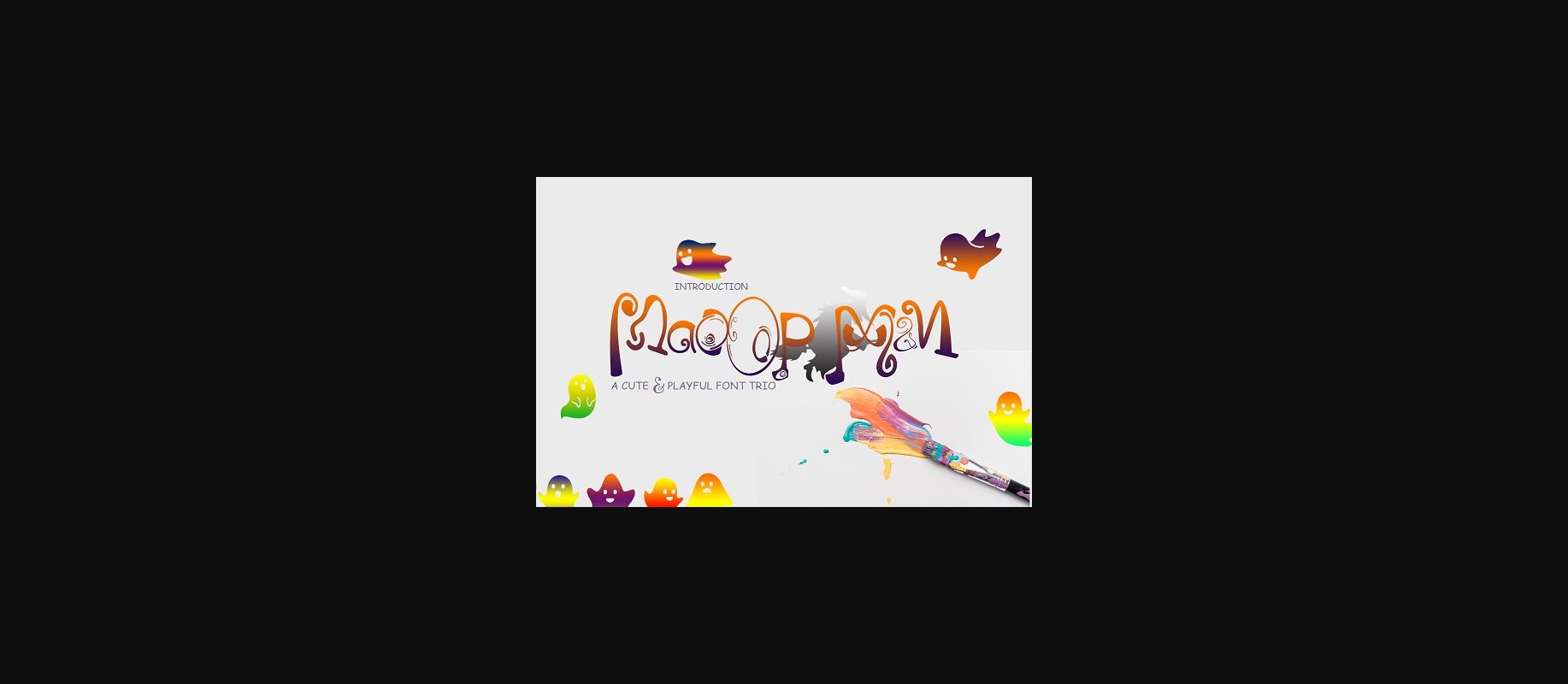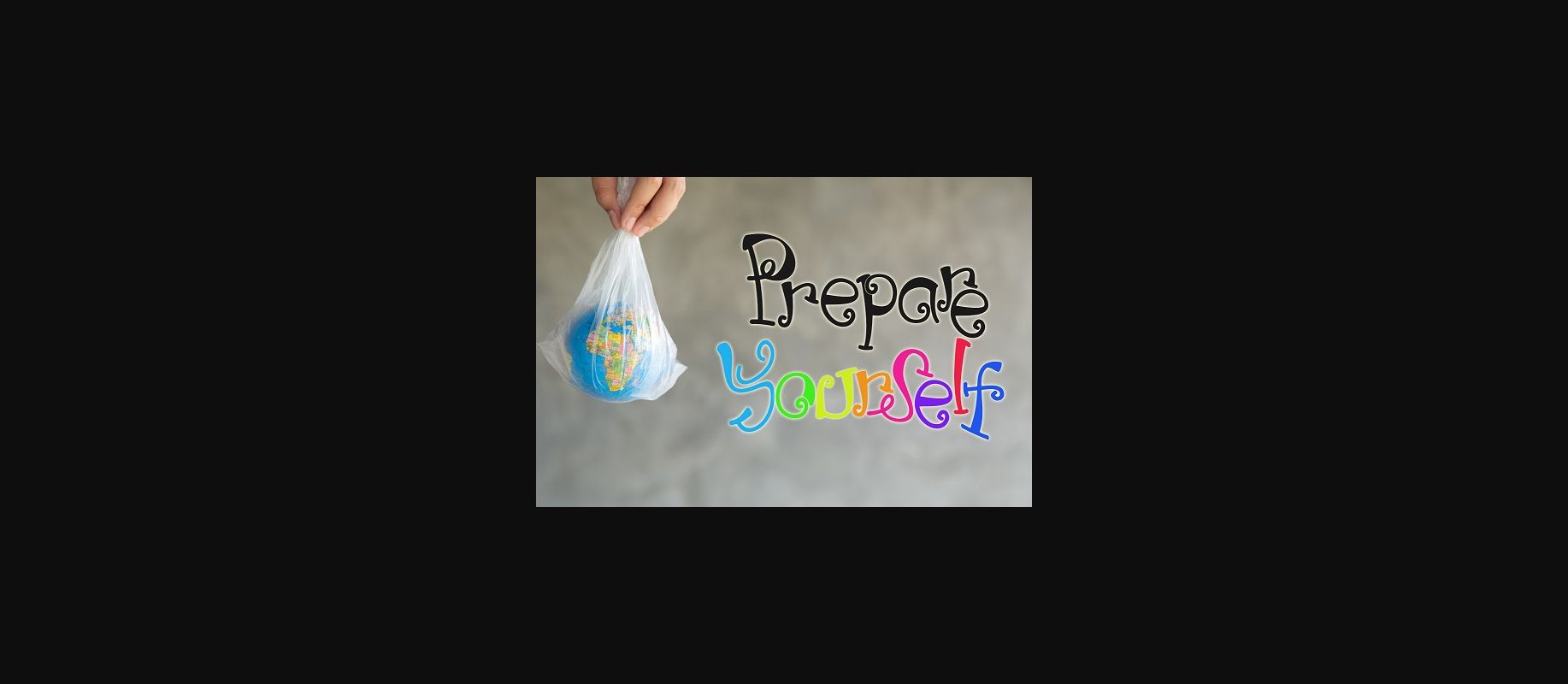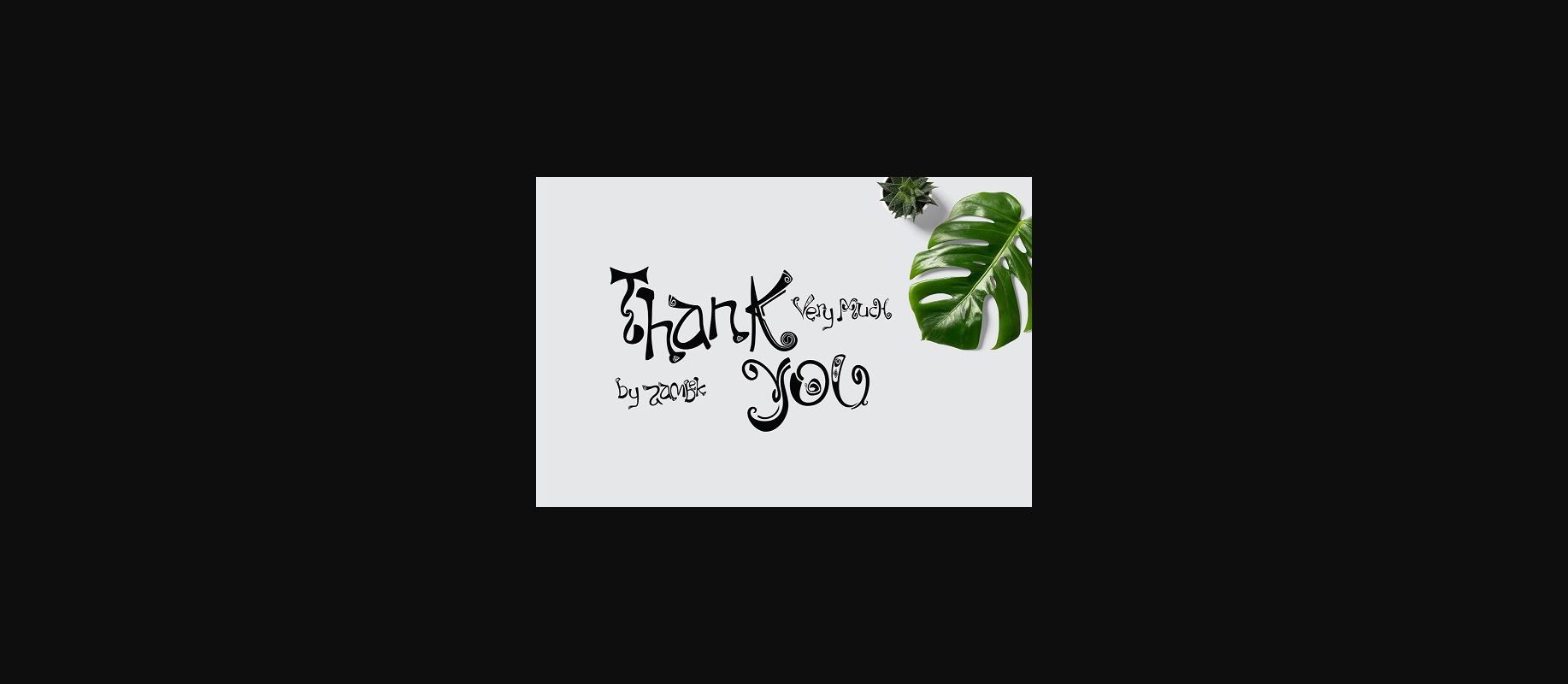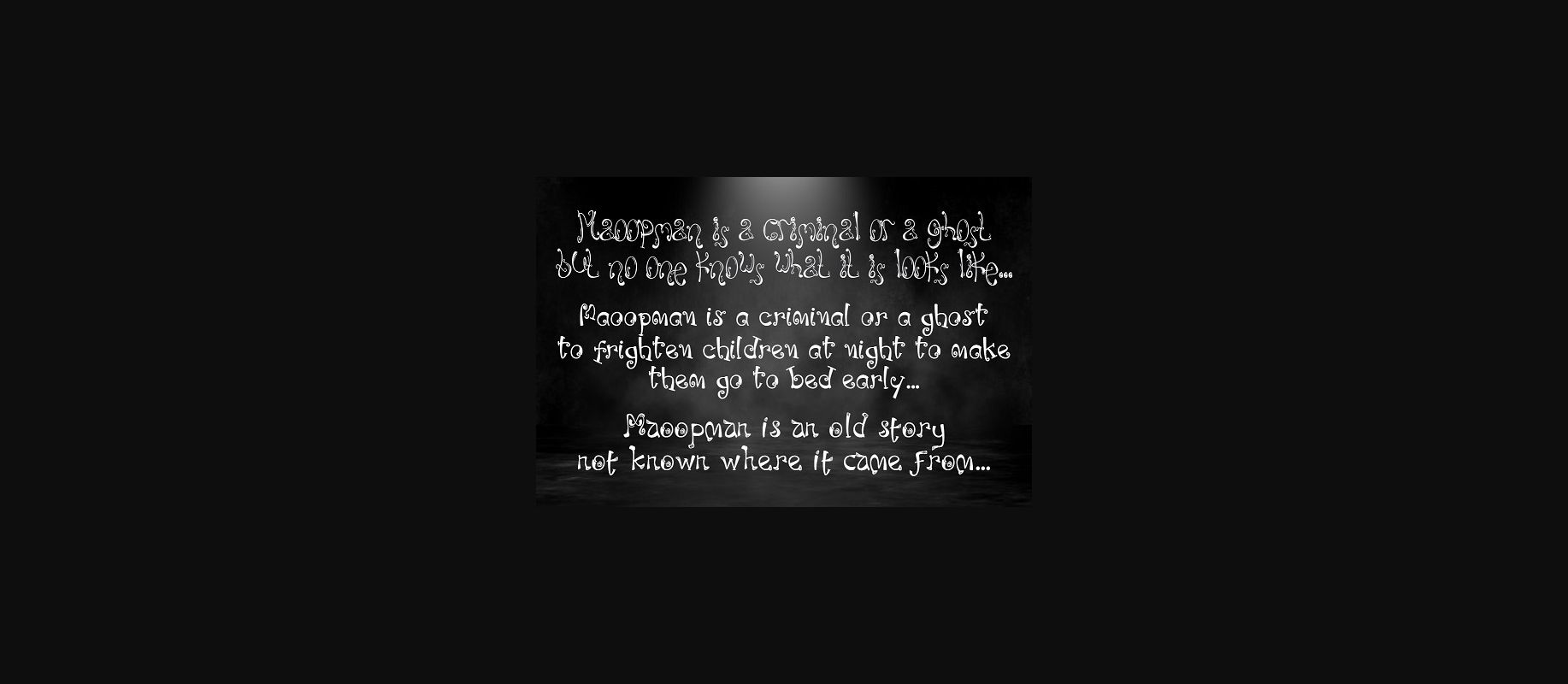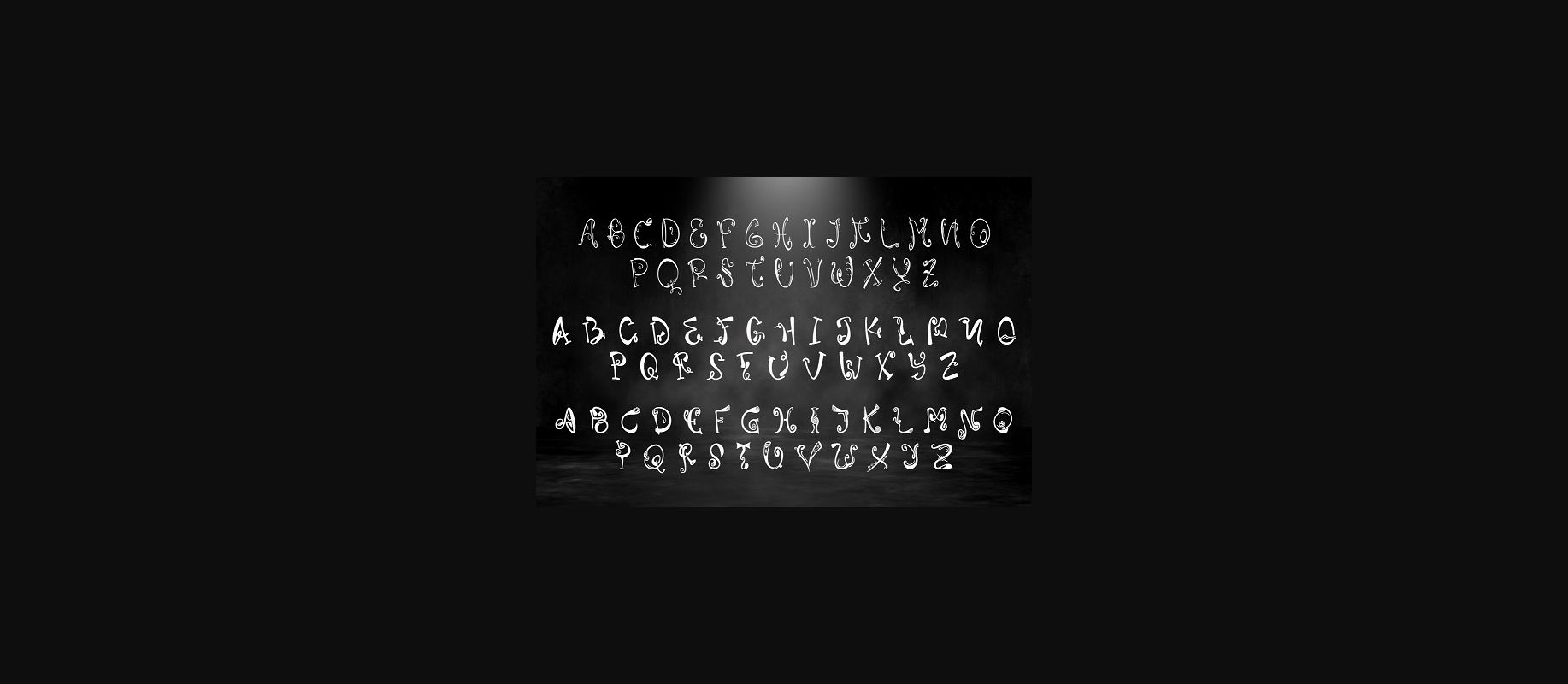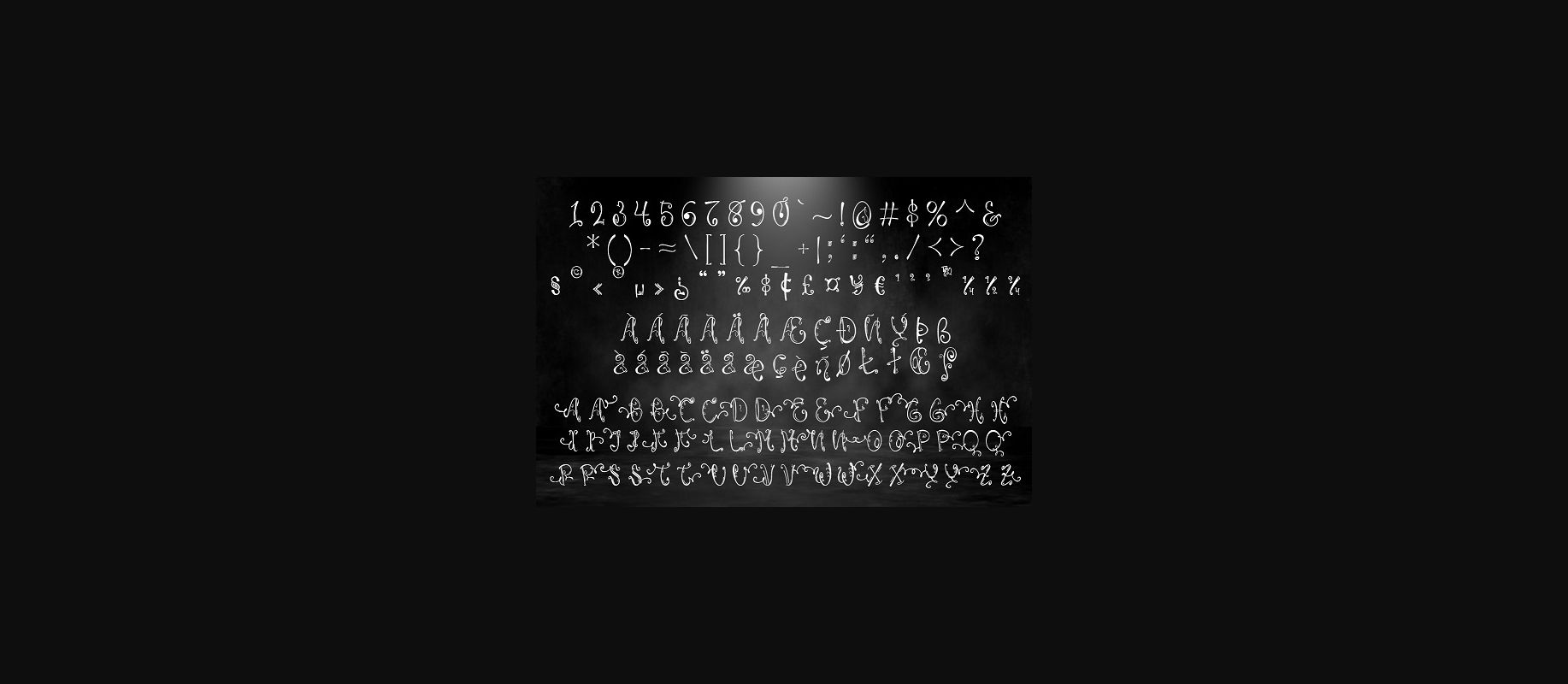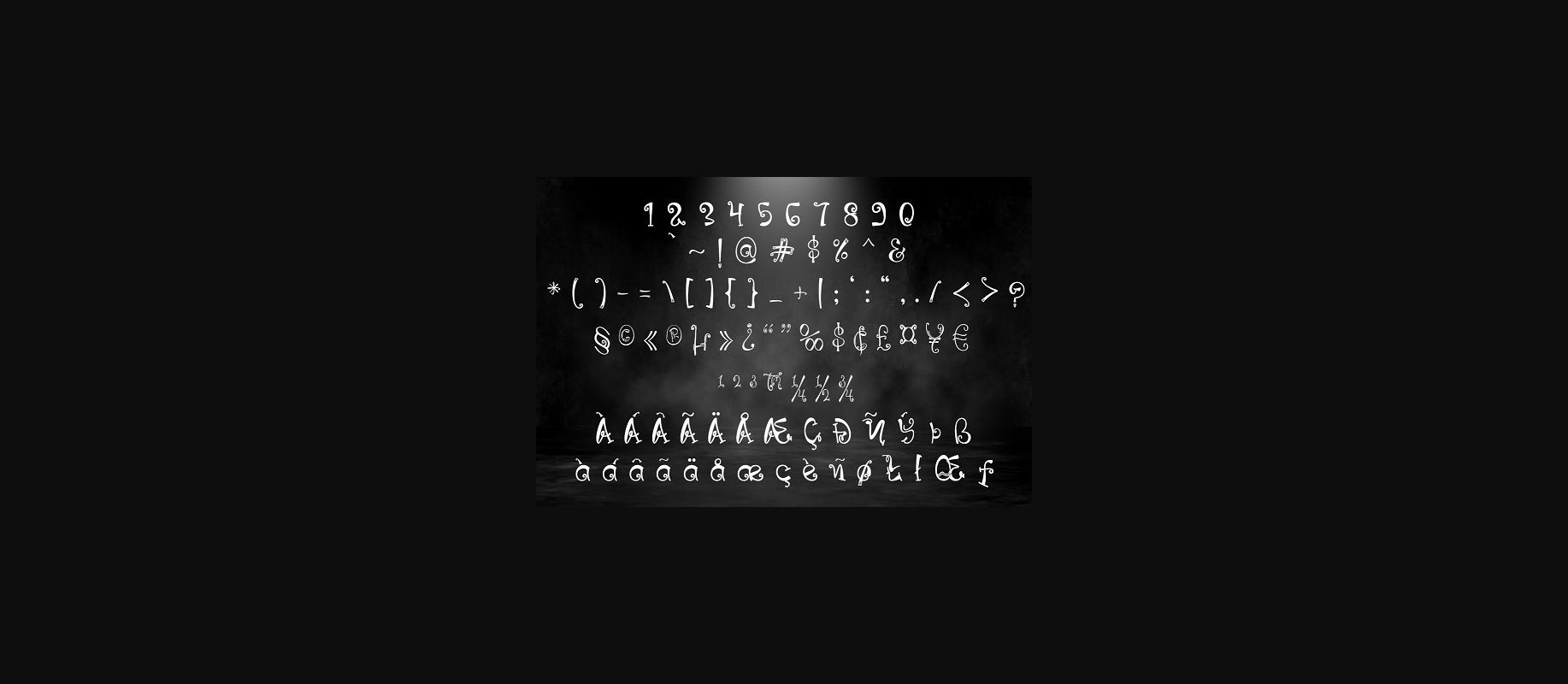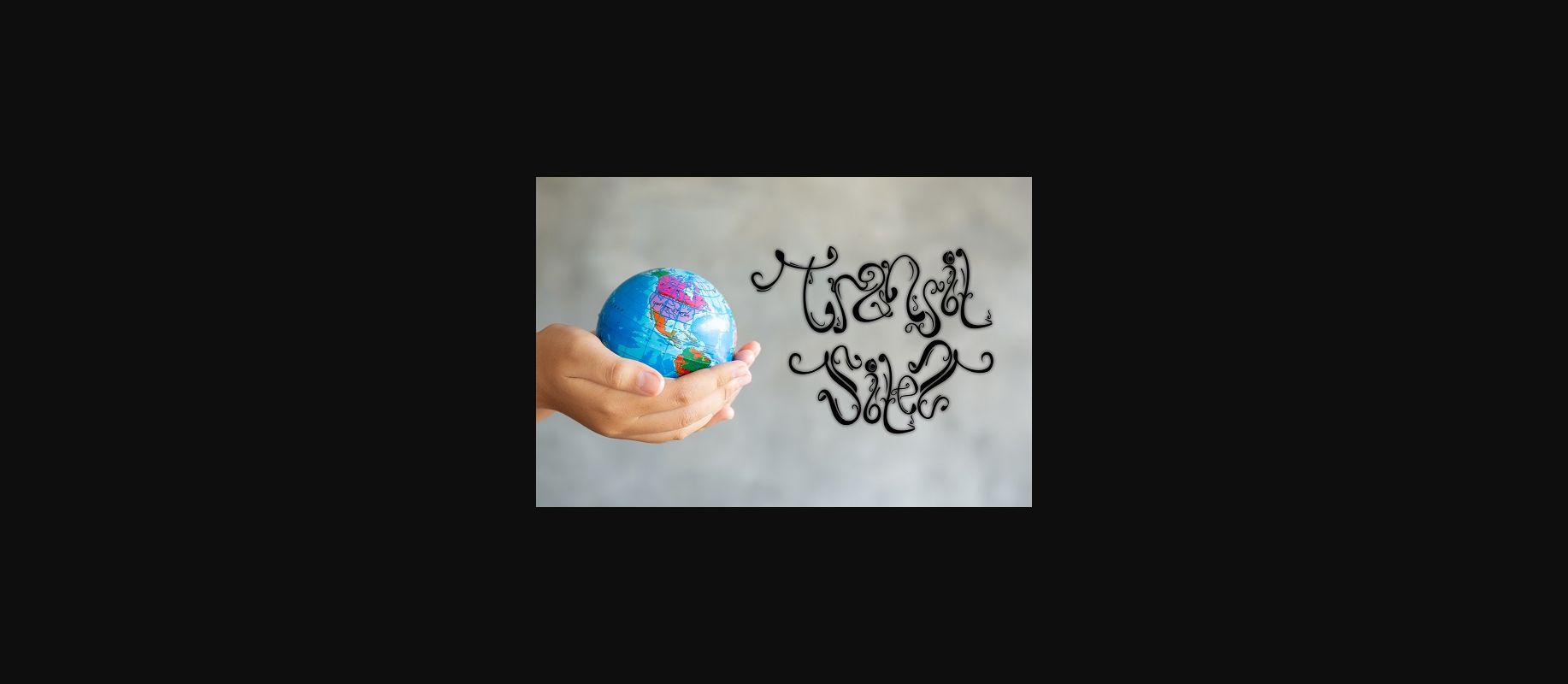
MaoopMan Font
About MaoopMan Font
MaoopMan is a decorative font that works great for titles. It is perfectly suited for a wide variety of creative projects!